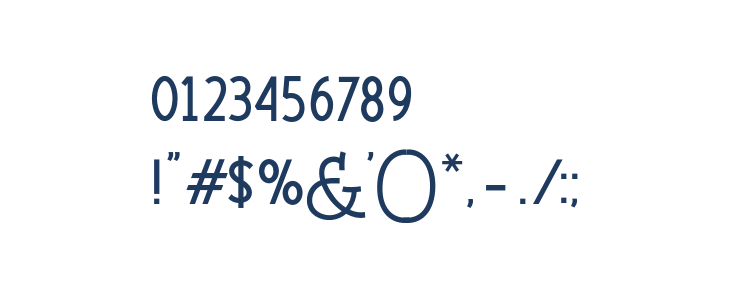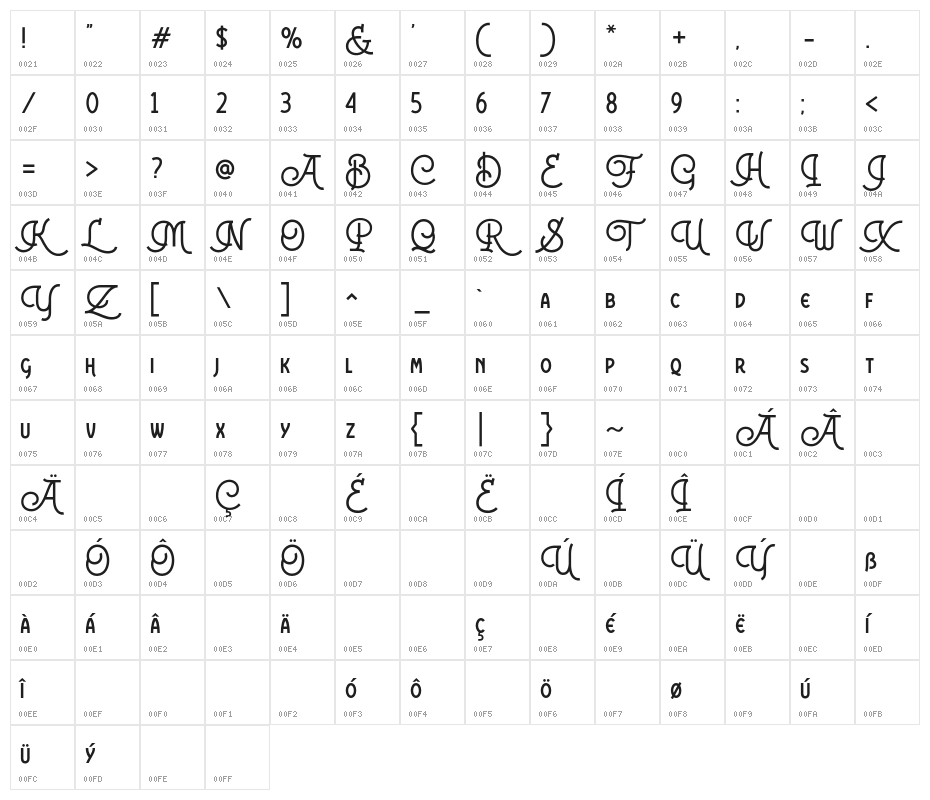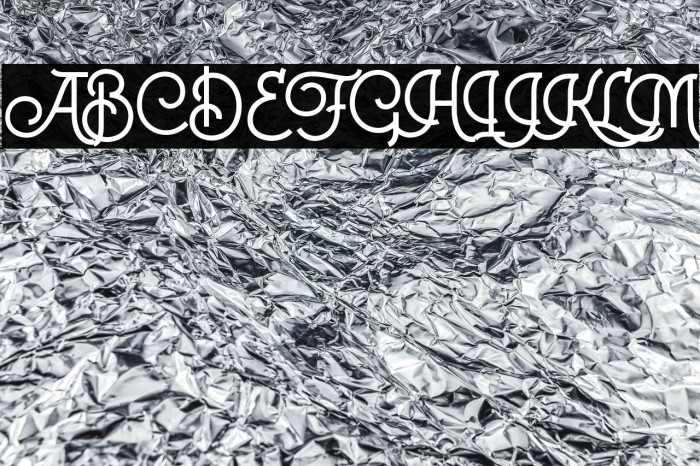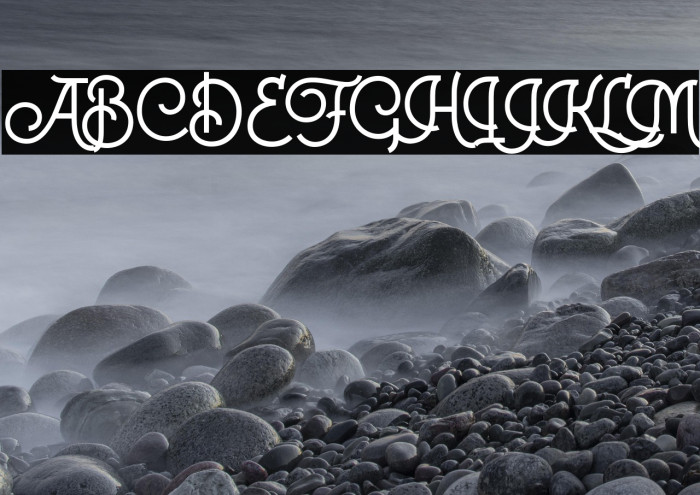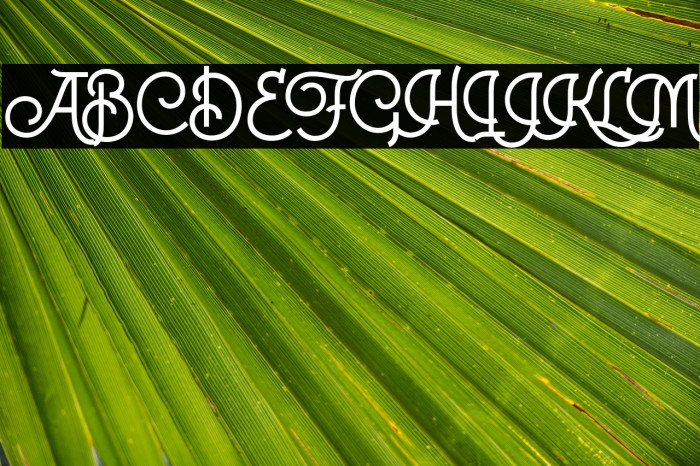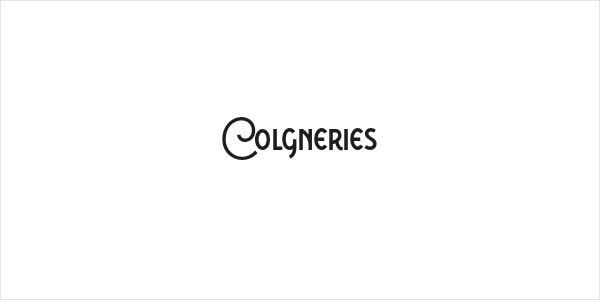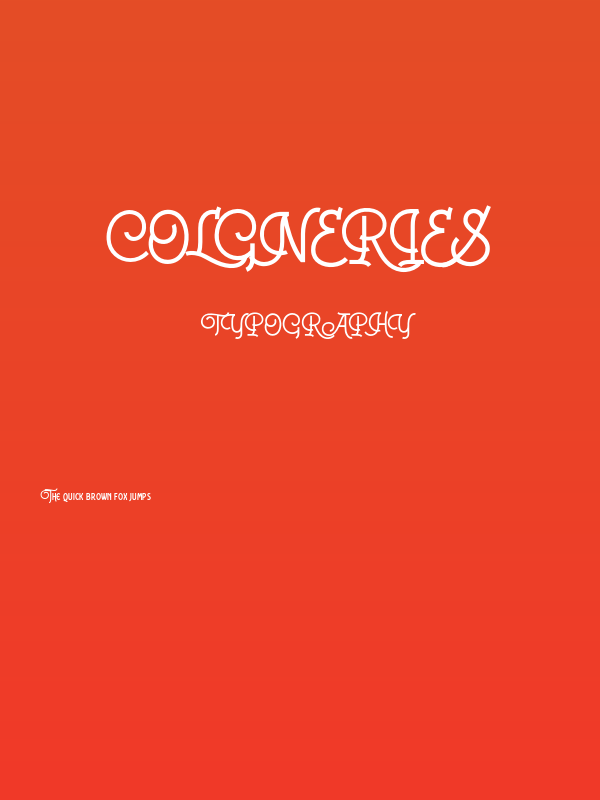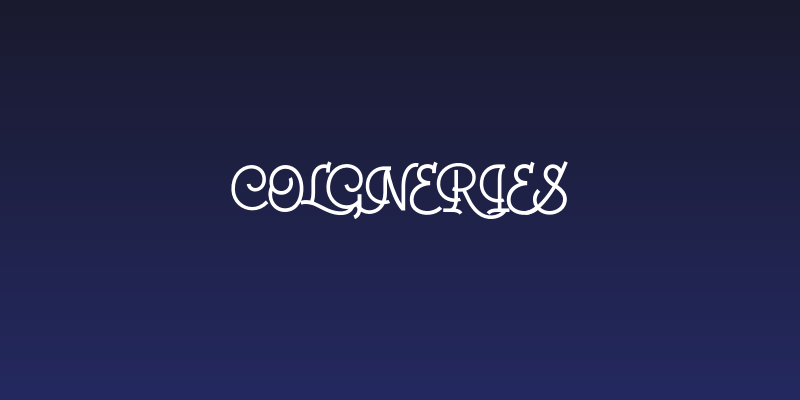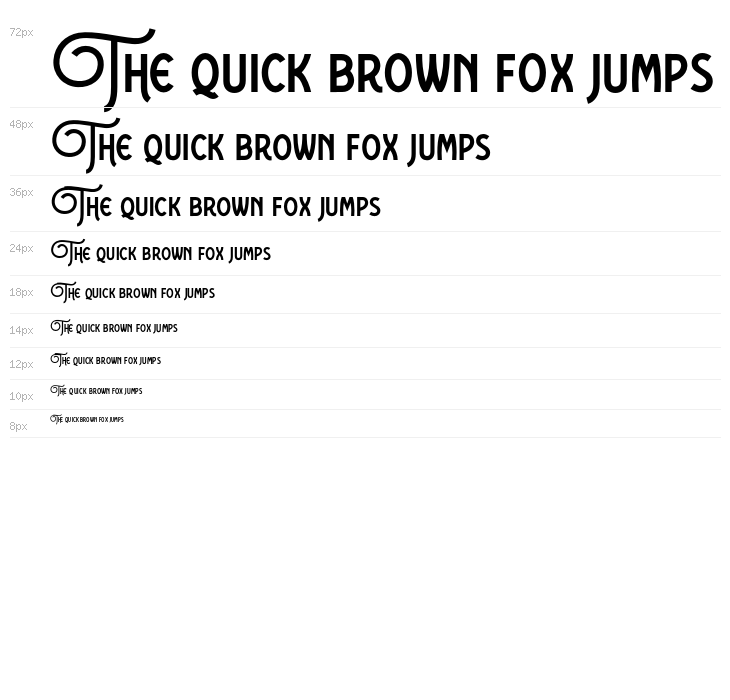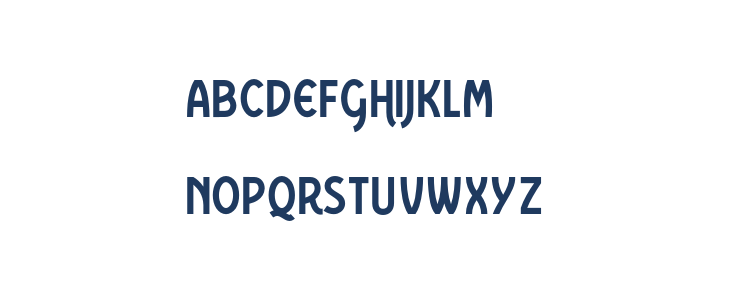
Colgneries Font
This font features a unique blend of decorative and bold elements. The uppercase letters on the first row exhibit a flourish style with intricate curves and loops, giving them an ornate and elegant appearance. The second row of uppercase letters presents a more straightforward, bold style with strong, clean lines, making them highly legible. The numerals are consistent with the bold style, ensuring clarity and readability. The special characters maintain the decorative theme, adding a touch of flair to punctuation and symbols. Overall, this font combines decorative and bold characteristics, making it versatile for various design needs.
| Use Case | Headlines, Logos, Invitations |
| Proposed Projects | Ideal for wedding invitations, branding, logo design, and decorative headings. |